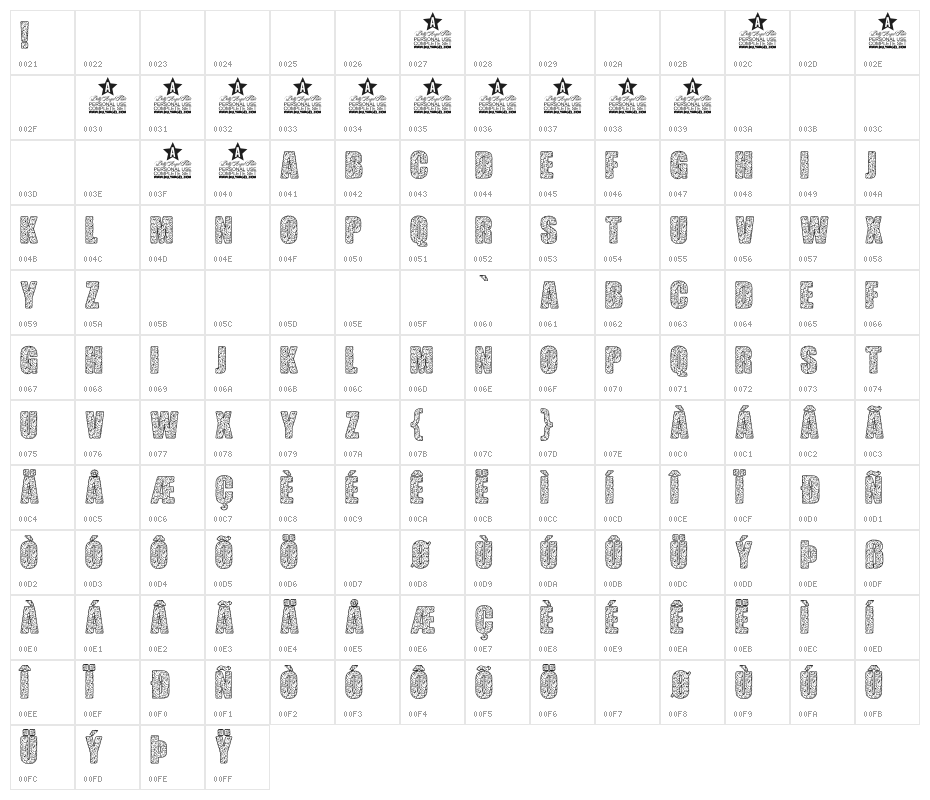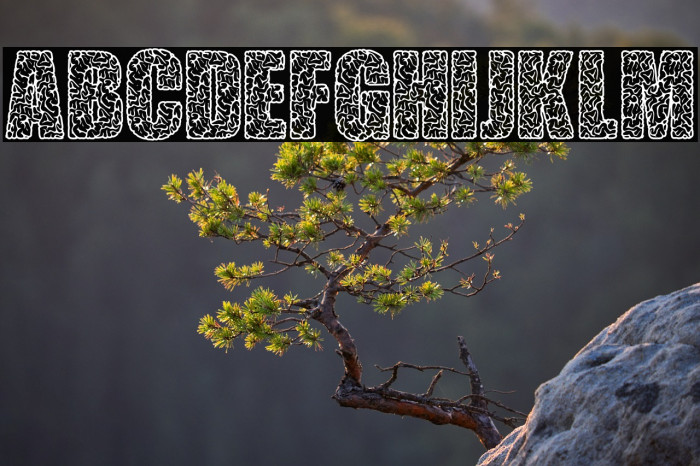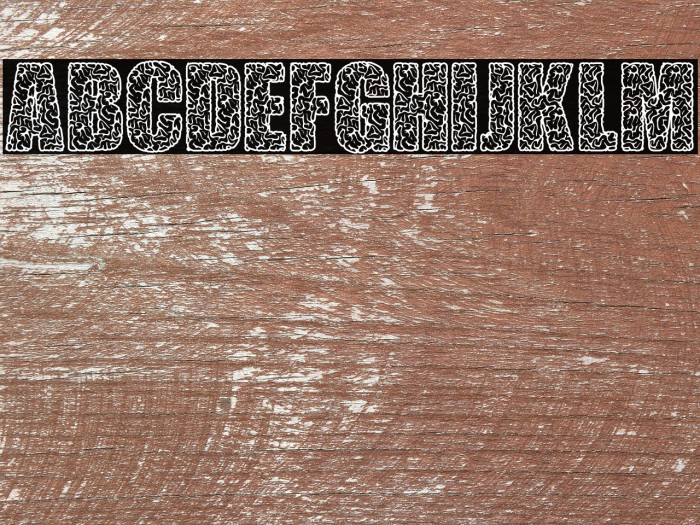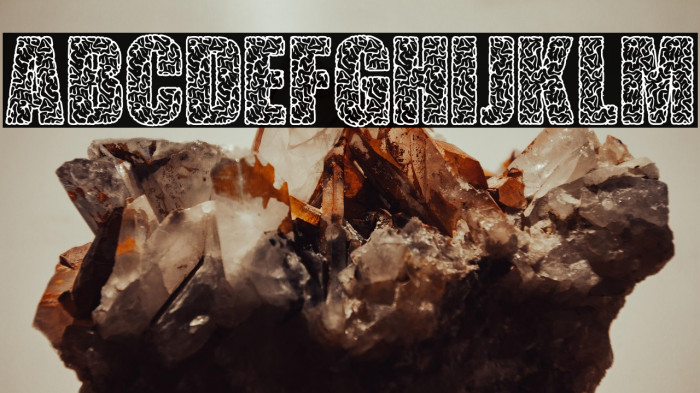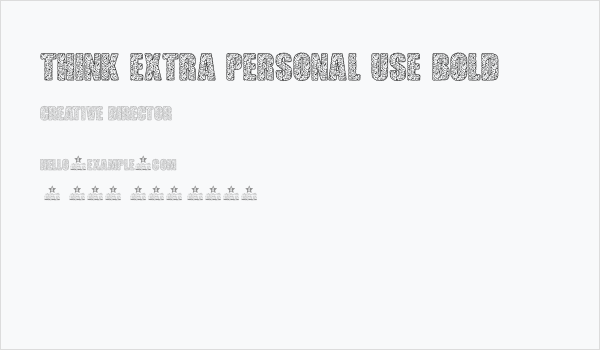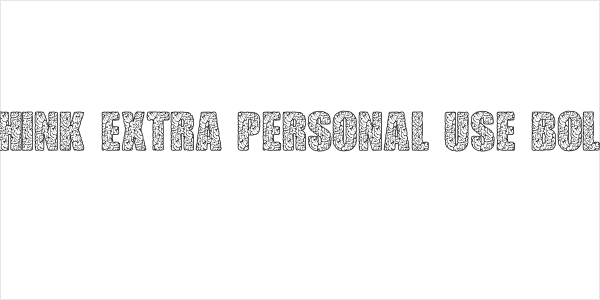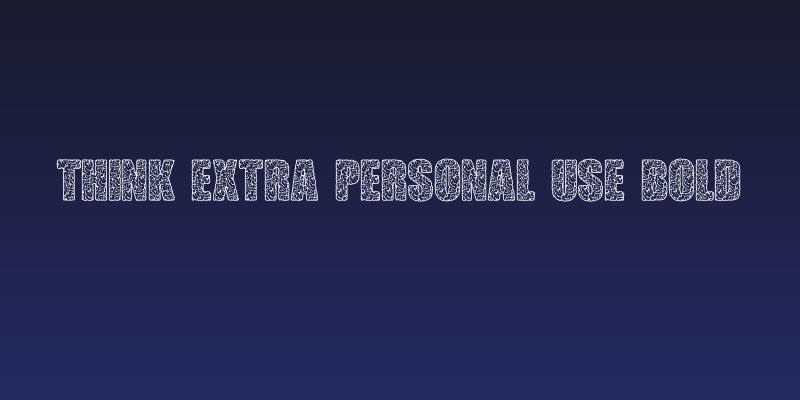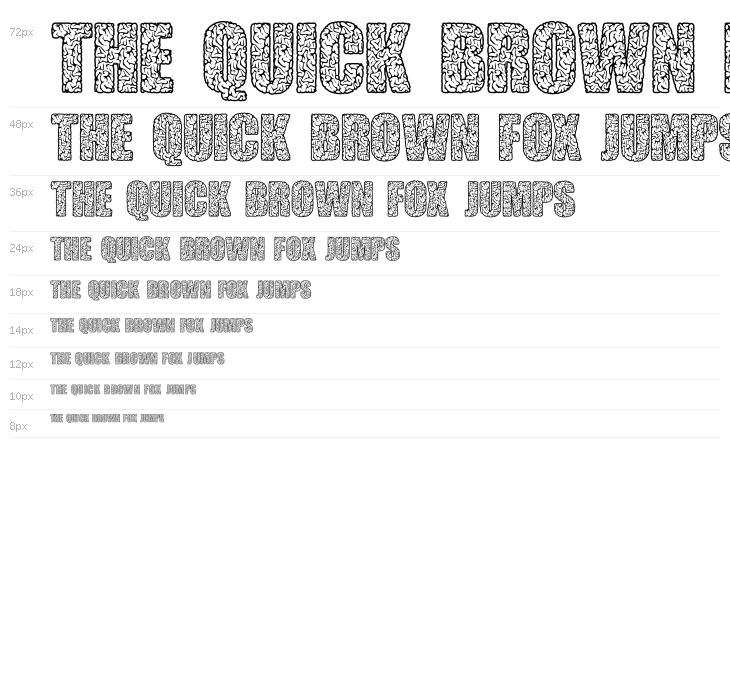
THINK EXTRA PERSONAL USE Bold Font
THINK EXTRA PERSONAL USE Bold Description
This font features a bold, decorative style with intricate patterns resembling brain-like textures within each letter. The uppercase letters are prominent and eye-catching, making them ideal for standout designs. The font's unique design gives it a playful yet edgy appearance, suitable for creative projects that require a distinct and memorable look. The characters are evenly spaced, ensuring readability despite their complex design. This font is perfect for projects that aim to capture attention and convey a sense of creativity and uniqueness.
| Proposed Projects | Ideal for posters, album covers, Halloween-themed designs, and creative branding. |